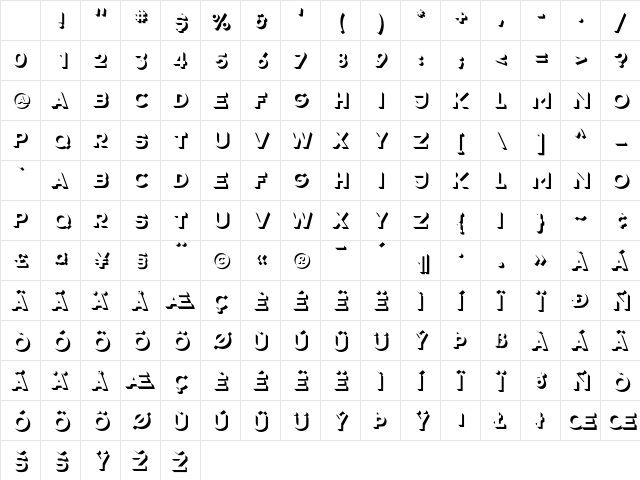
Complete P22Bayer Shadow glyph index. Displaying only characters natively supported by P22Bayer Shadow font.
P22Bayer is built around its visual character rather than neutral utility - its distinctive forms are designed to make an impression at display sizes.
Font Pairing: Pair with a clean neutral sans-serif for body copy to let P22Bayer's character lead without overwhelming the composition.
Pro Tip: Use P22Bayer exclusively at display sizes - it was designed to be seen, not read at length. Let a neutral companion handle body copy.